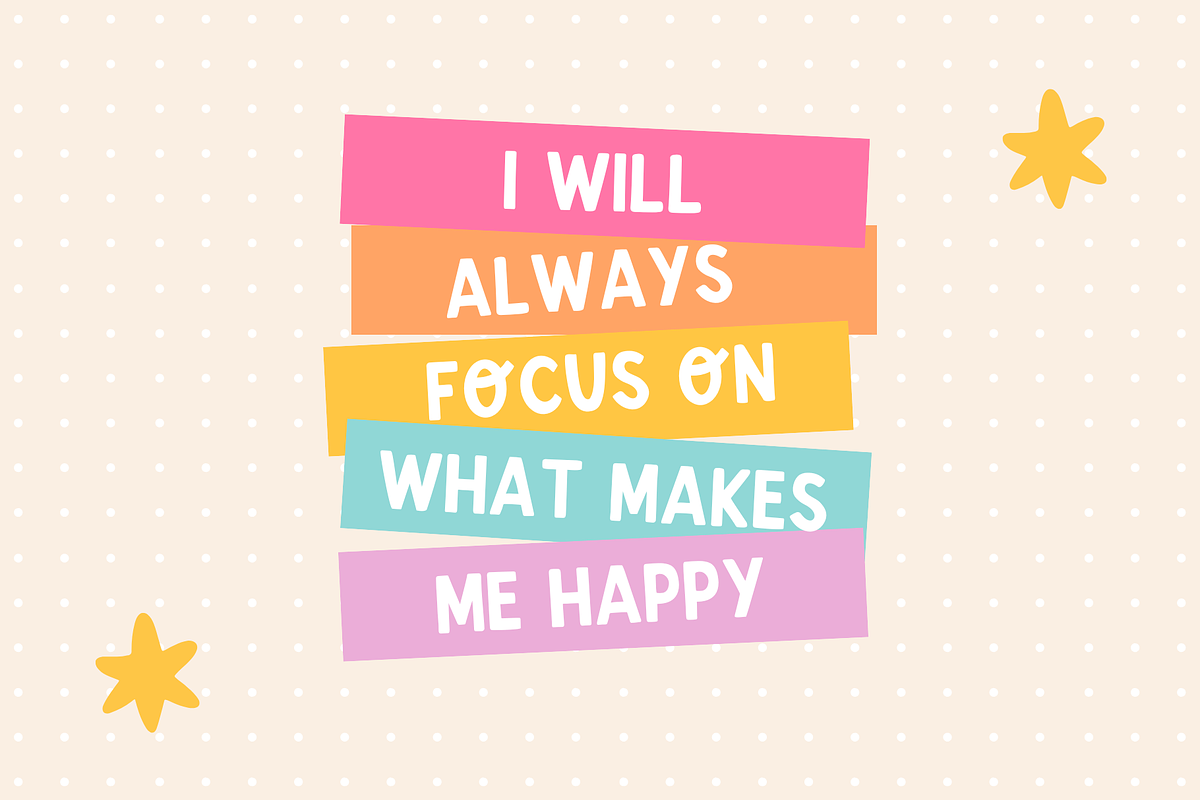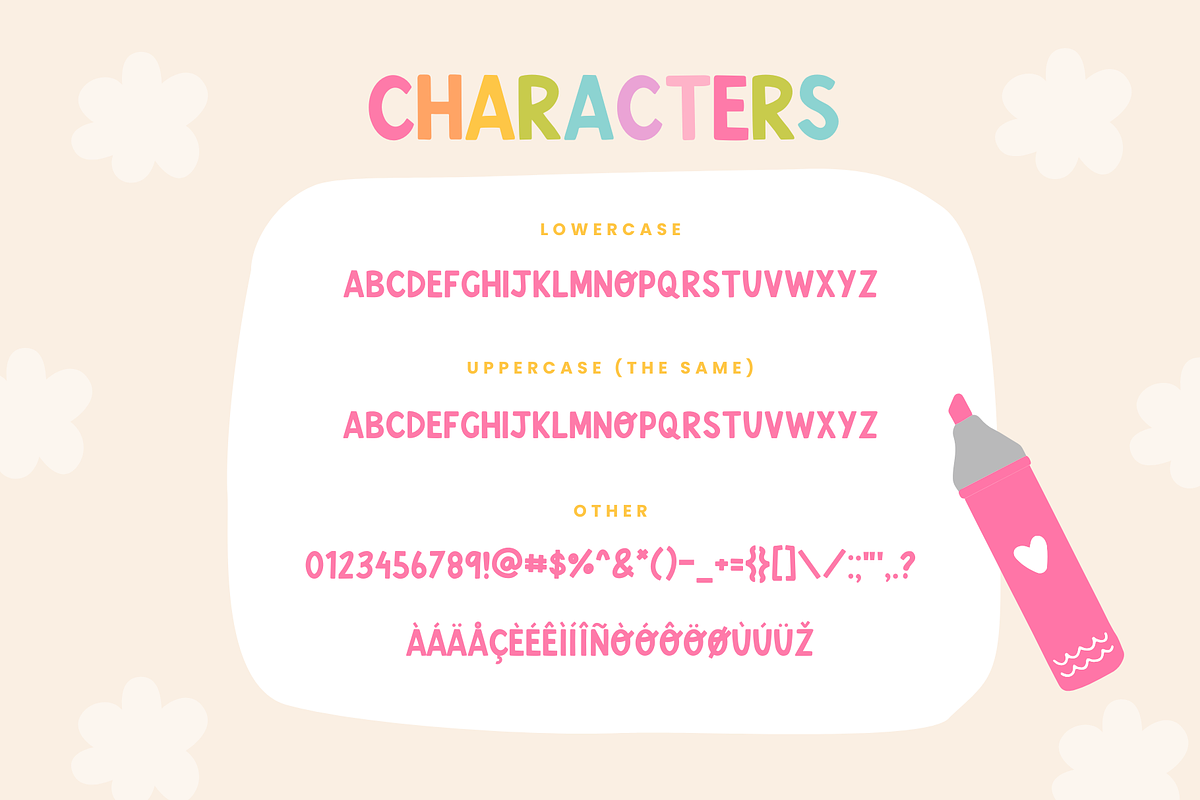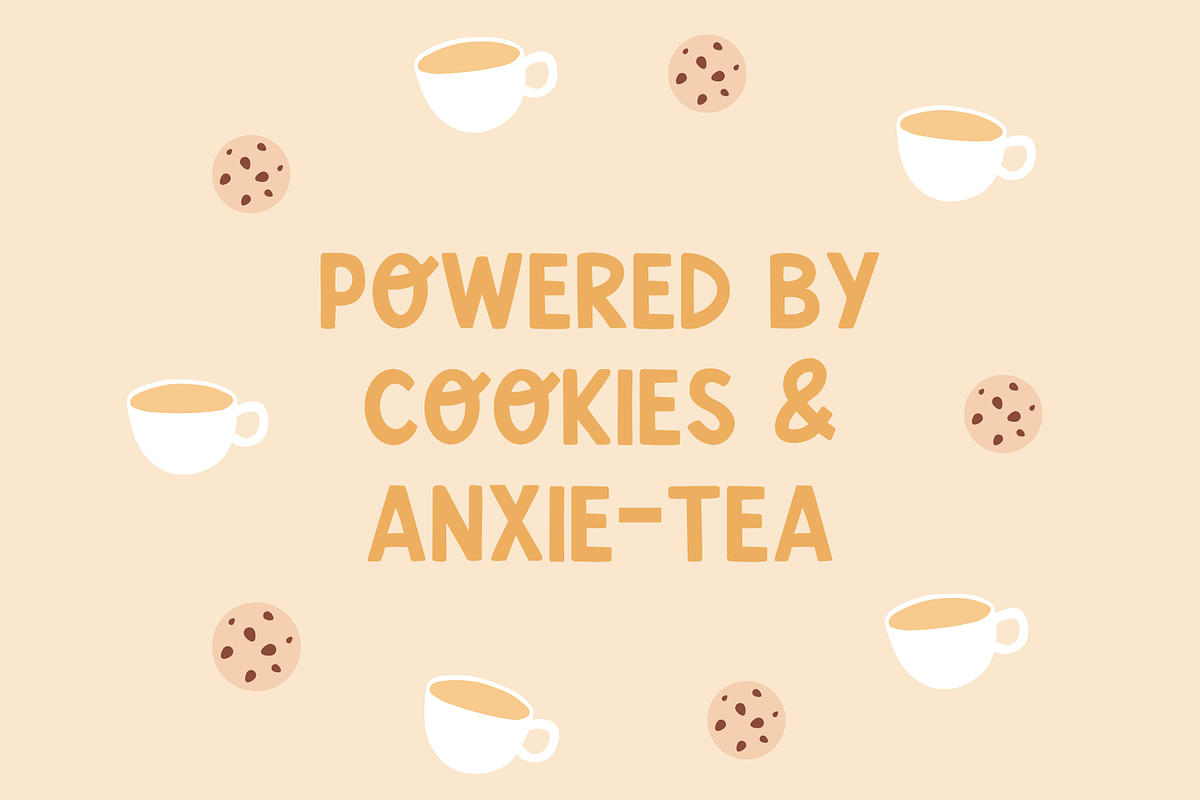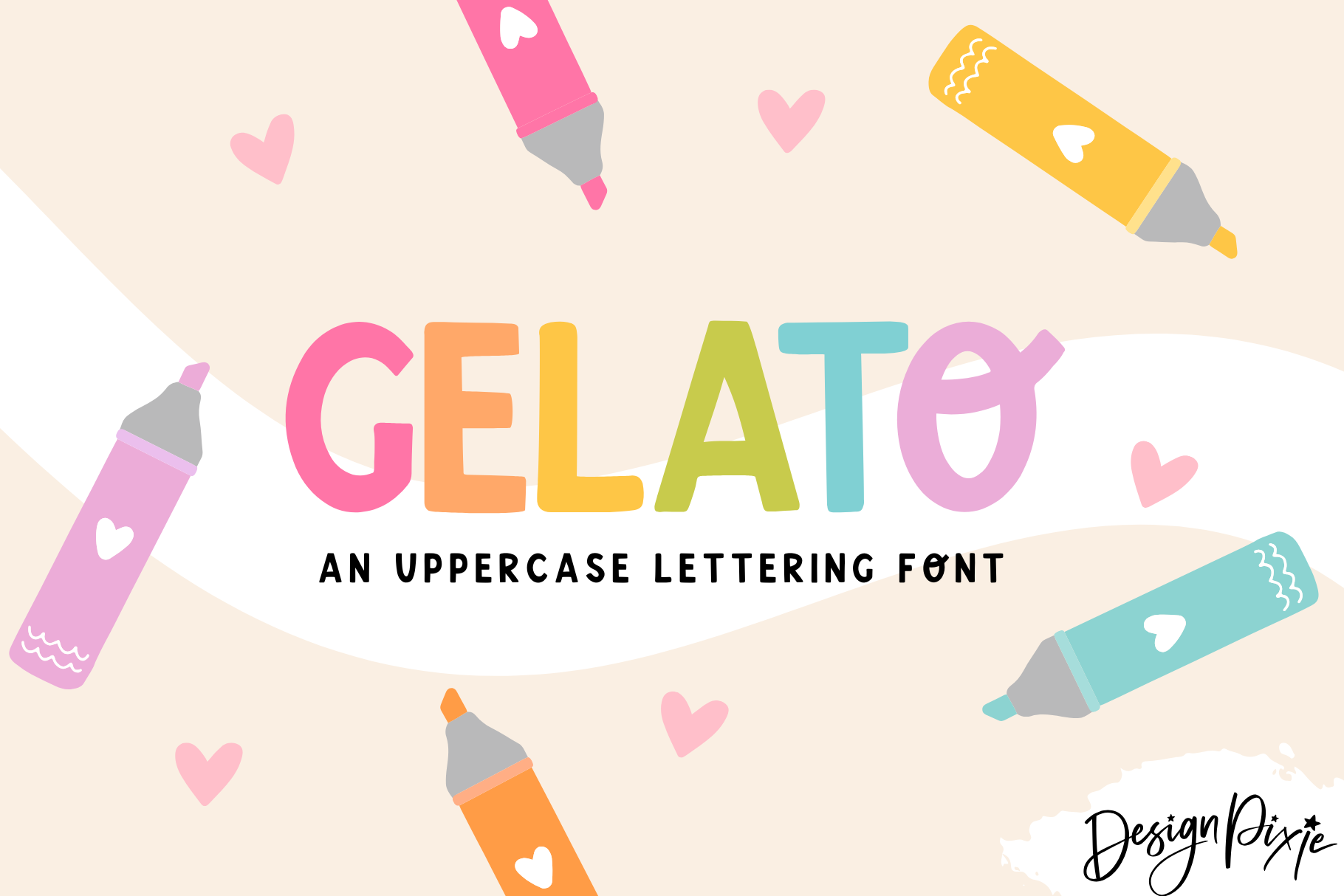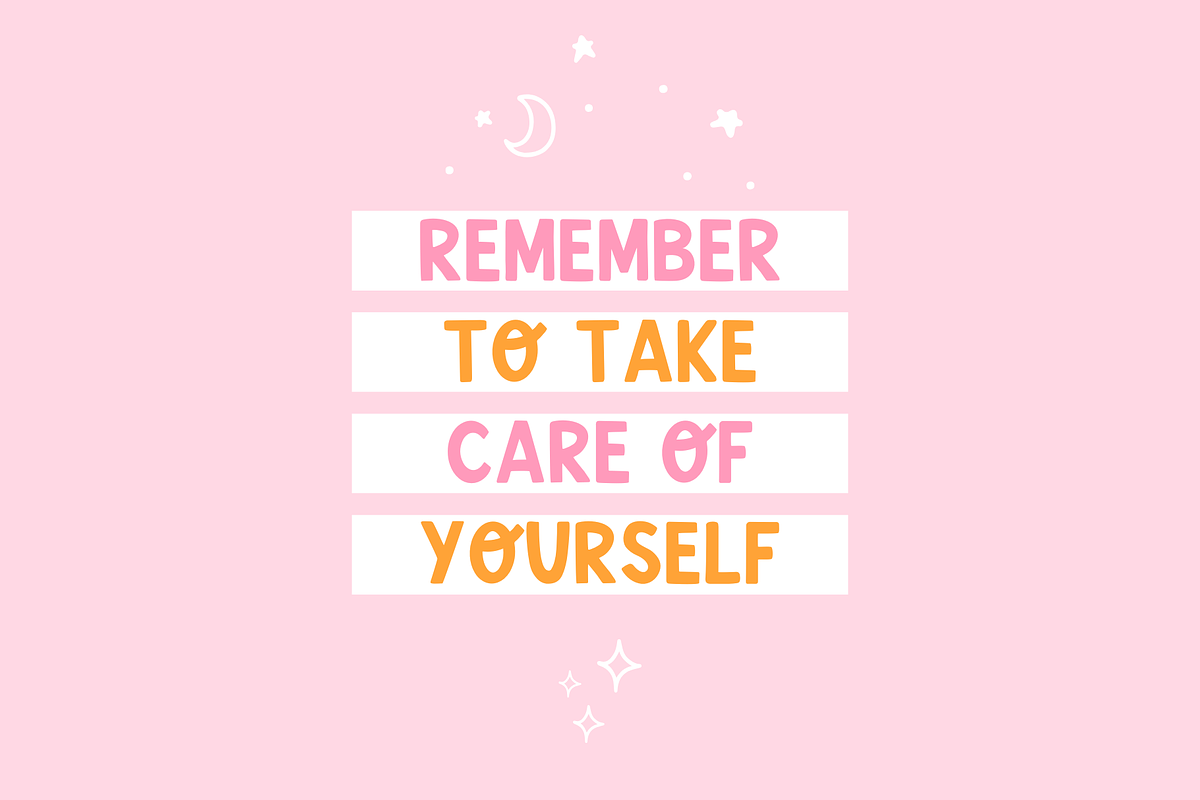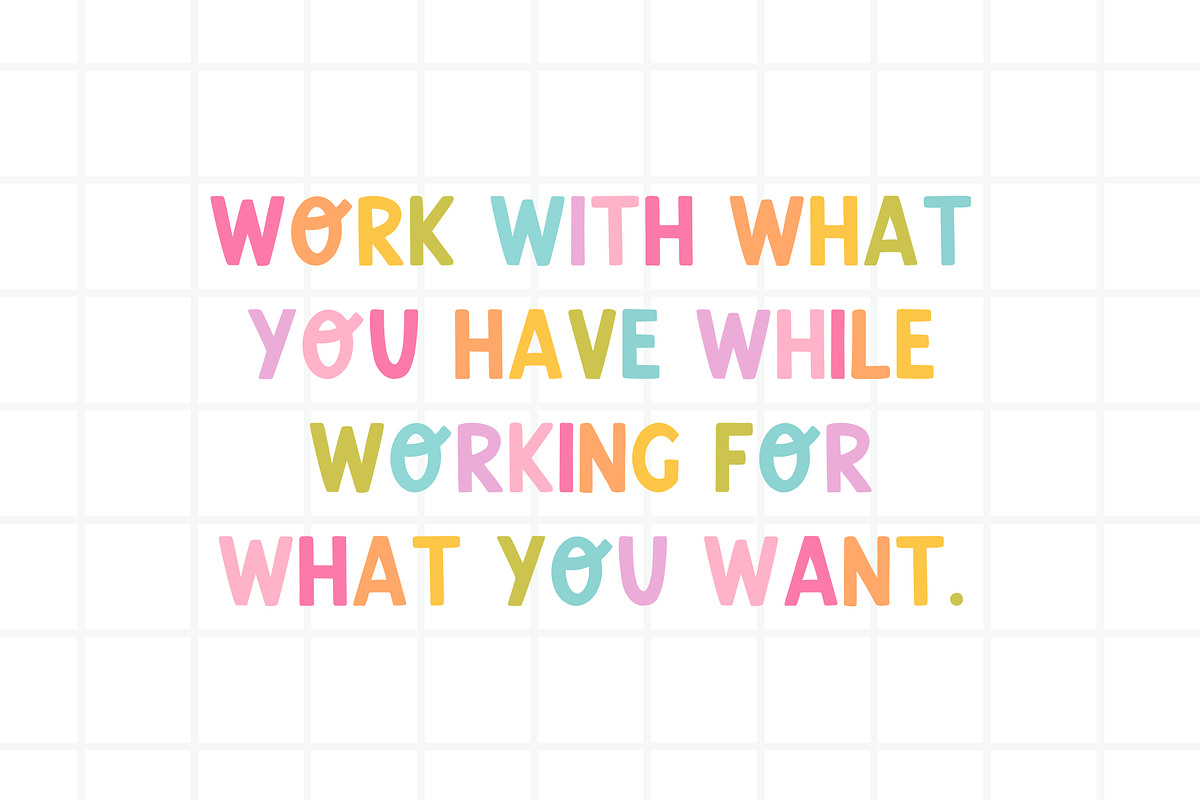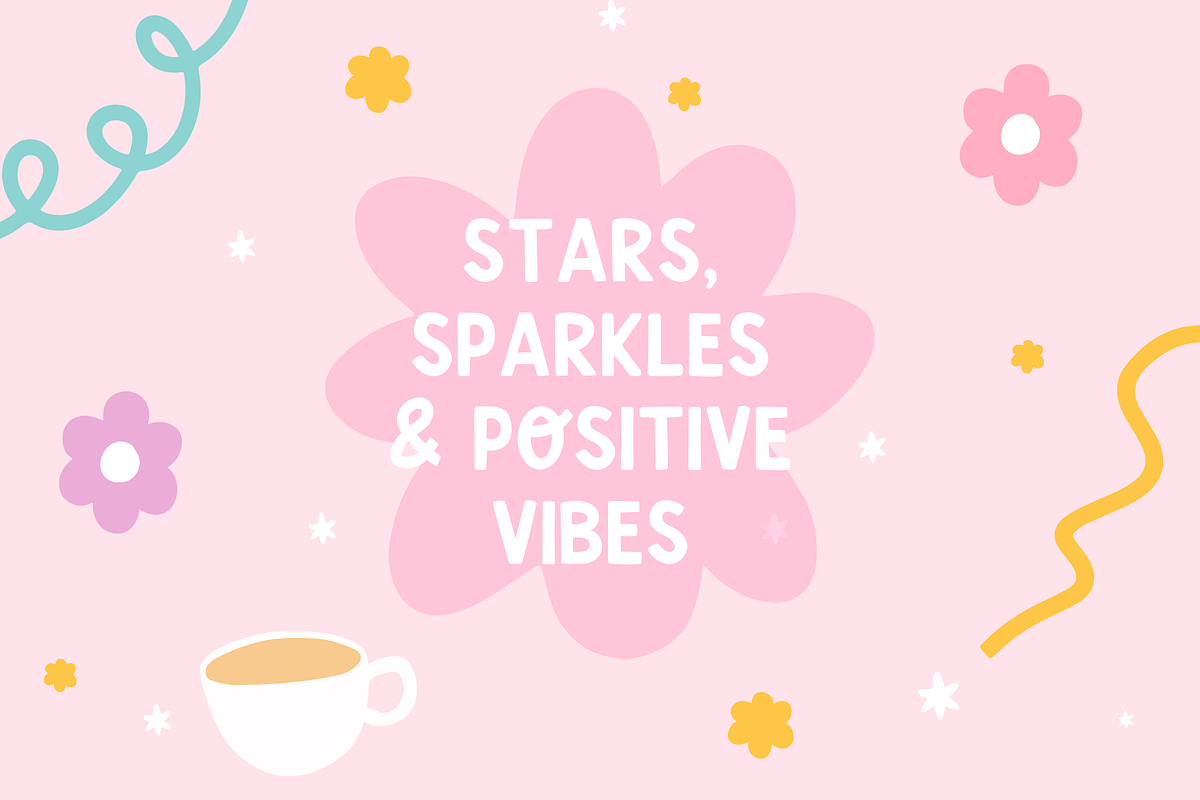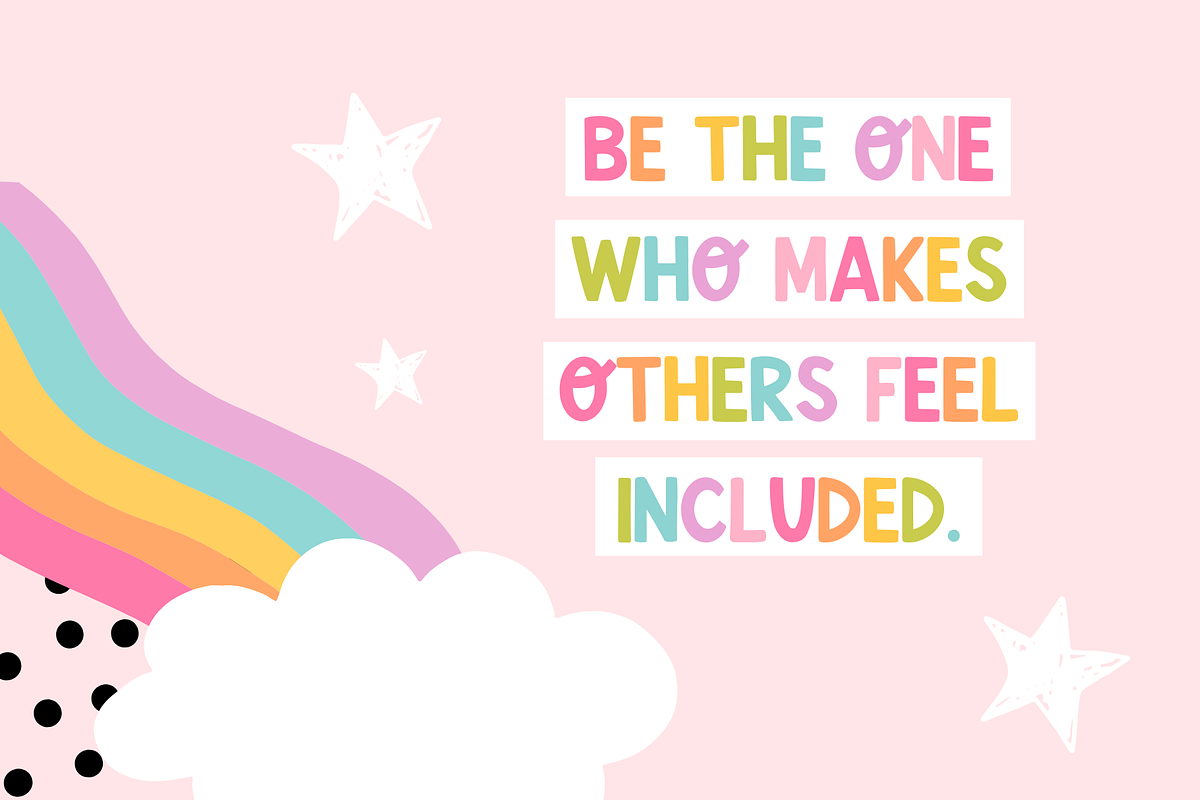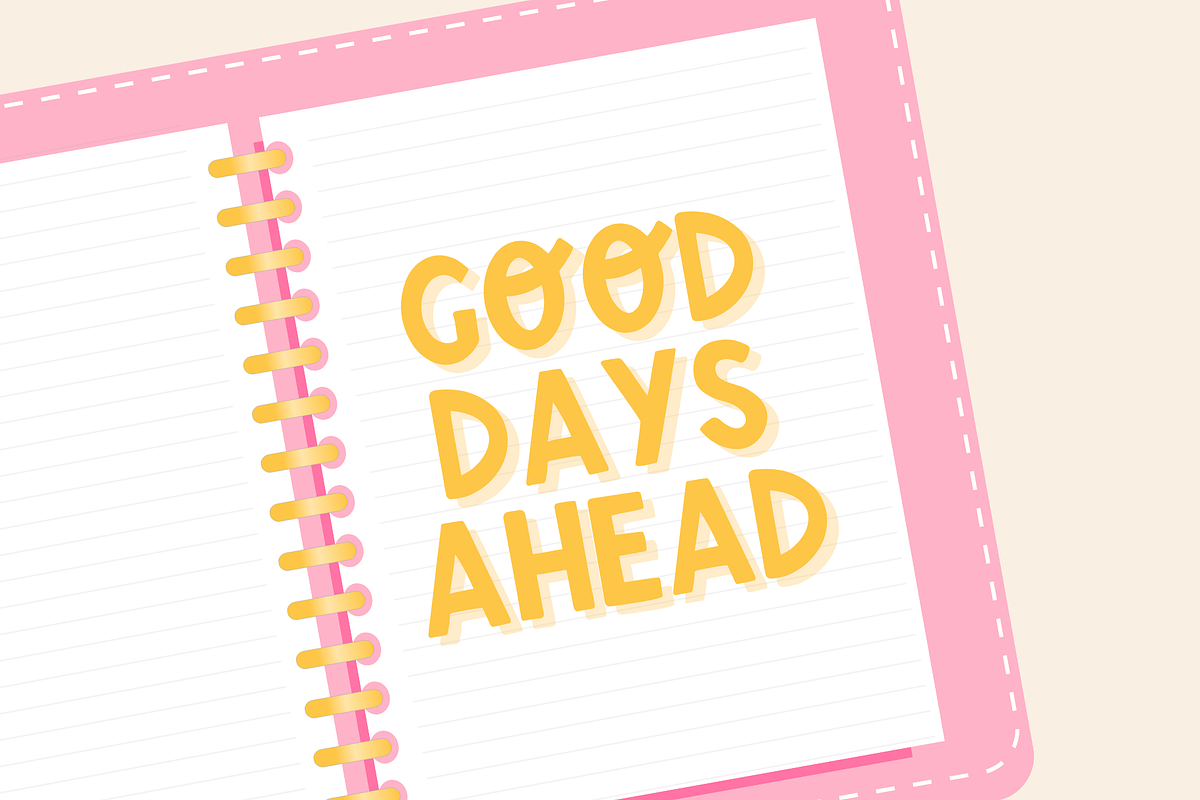
Gelato Font
Gelato is a lettering font in all uppercase characters with a curly O. It's a great highlighter font for Procreate, iPad, Cricut and more. Upload this font to Canva to use for your projects that need some cute uppercase text. It looks wonderful when multi-colored and is great for headings.
If you're in need of playful fonts you'll find original and unique fonts at Design Pixie. This fun handwriting font would be perfect for teachers, school projects, elementary, classroom printables, invitations, DIY design and more. If you create anything related to kids or education you will love using this chalk style font.
Uppercase fonts are great for lettering projects as you can easily type in style. The swirl O character included in this font gives it an extra stylish effect that will set your designs apart from basic plain fonts.